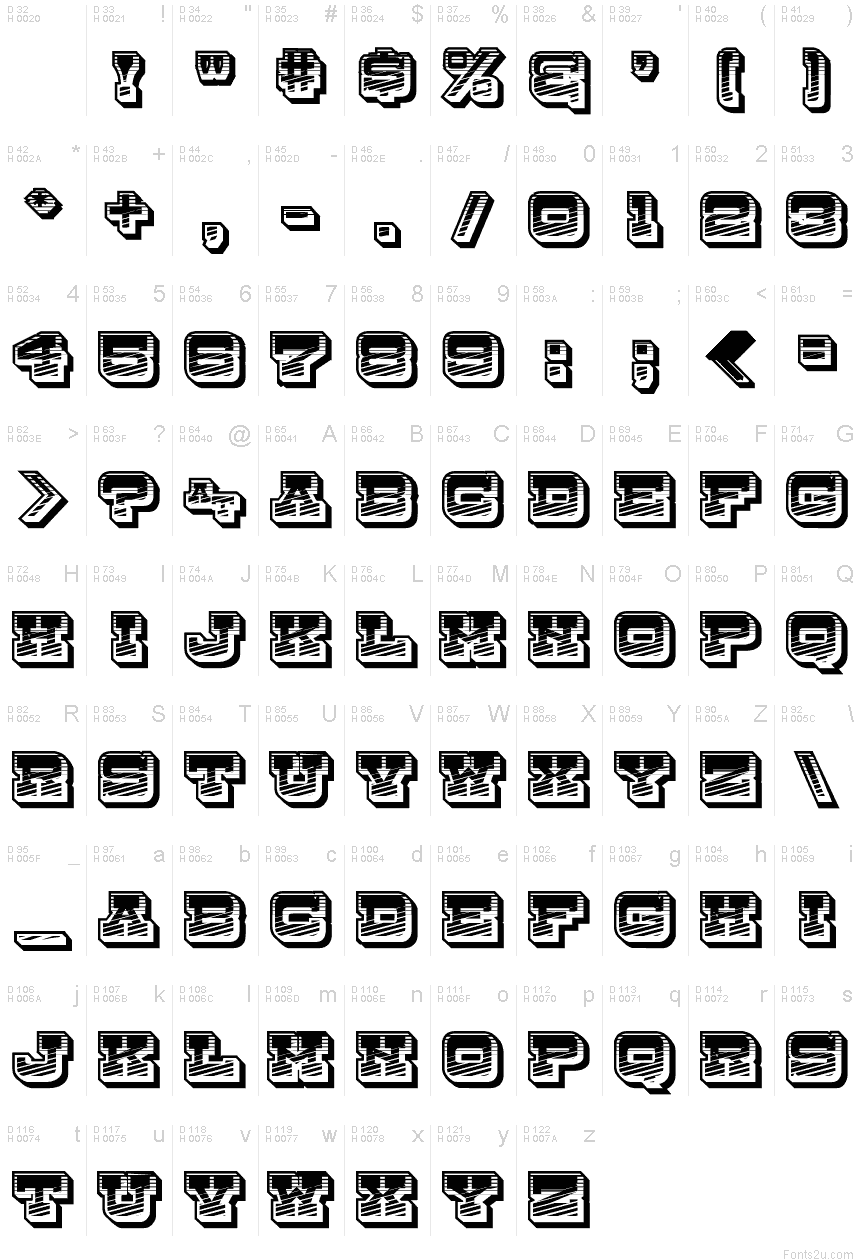
Dry Goods Rustic JL
Dry Goods Rustic JL font by Jeffrey N. Levine is a free groovy display typeface that feels like it was lifted from an old corner store sign. Chunky, squared-off letters with rounded corners are carved out by sharp white stripes, giving each word a layered, hand-painted look. The bold black frame and striped interior create a sense of depth and motion, like light raking across weathered wood or enamel.
Using Dry Goods Rustic JL, headlines instantly pick up a vintage merchandise vibe that works beautifully for posters, retro packaging, signage, event flyers, T-shirt graphics, and bold logo wordmarks. This free font shines at large sizes where the striping can really breathe, so keep supporting text in a simple sans serif and let Dry Goods Rustic JL handle the loud, attention-grabbing moments.